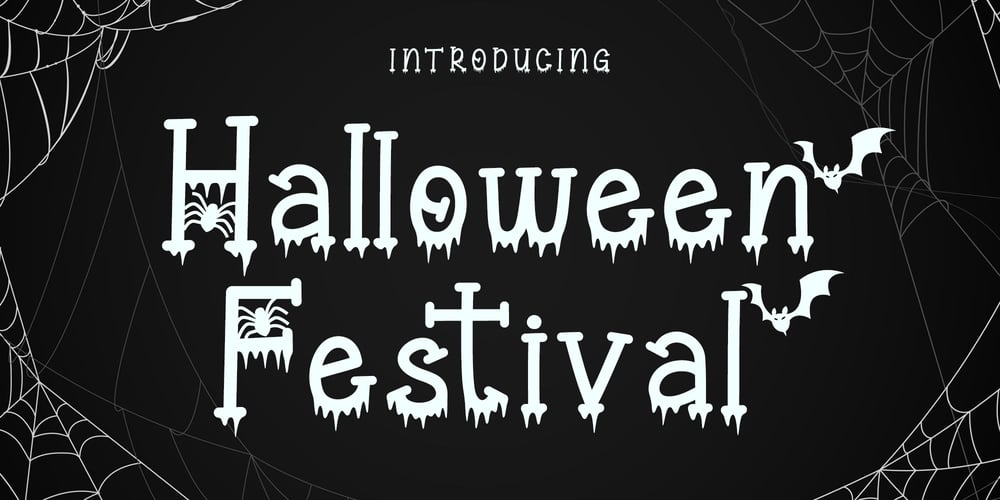
Halloween Festival Font Family was designed by Agung Eko Nugroho and published by AEN Creative Studio. Halloween Festival contains 2 styles and family package options. Halloween Festival is a cool-lettered and spooky display font. It is perfectly suitable for any Halloween-related project or crafty idea! Halloween Festival is PUA encoded which means you can access all of the glyphs and swashes with ease!